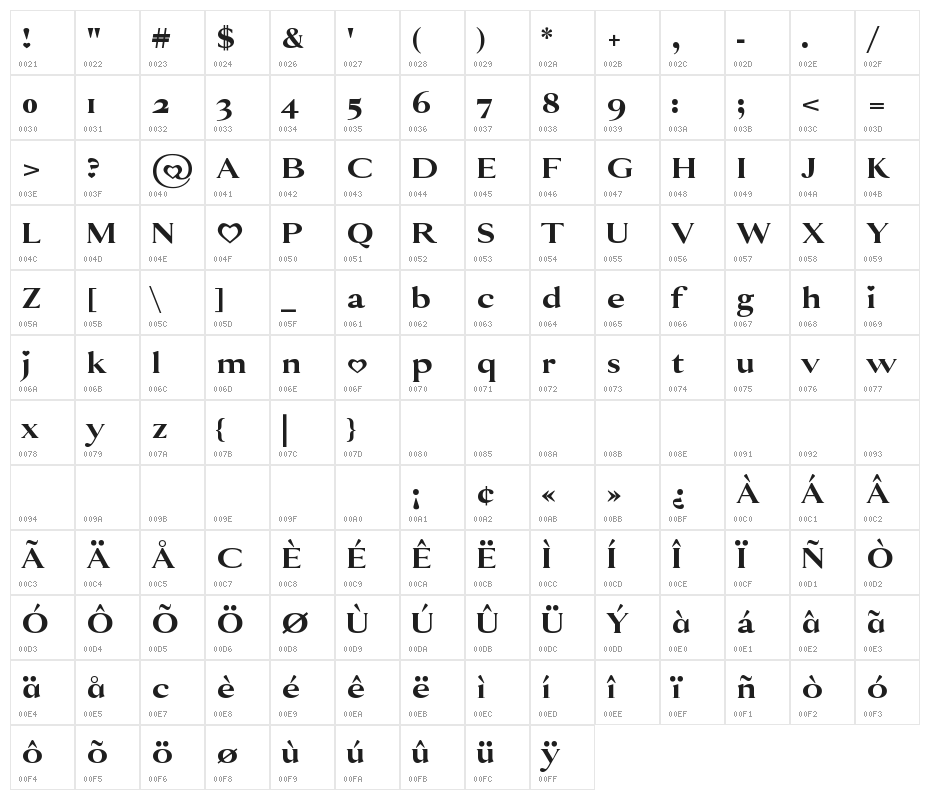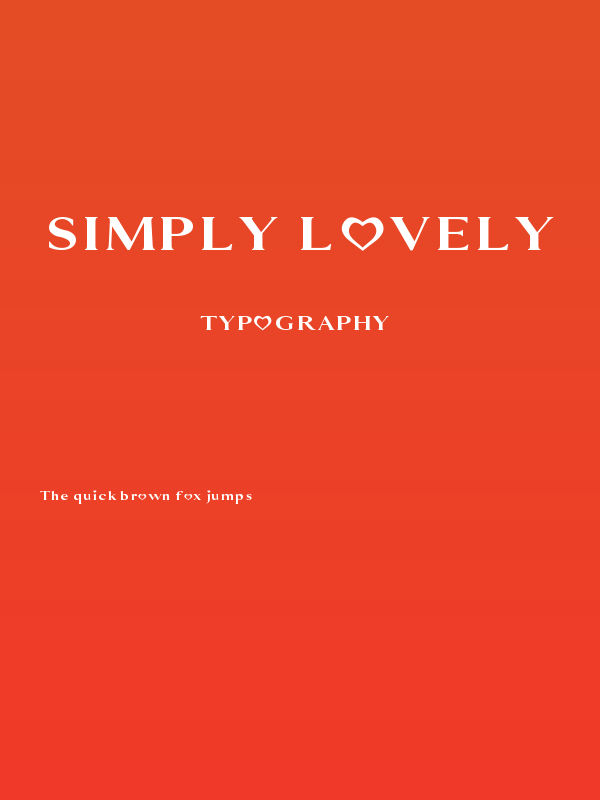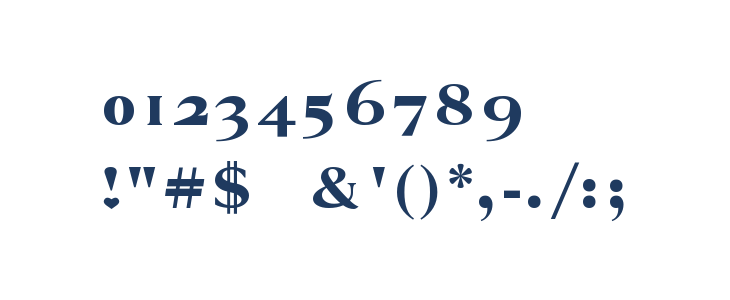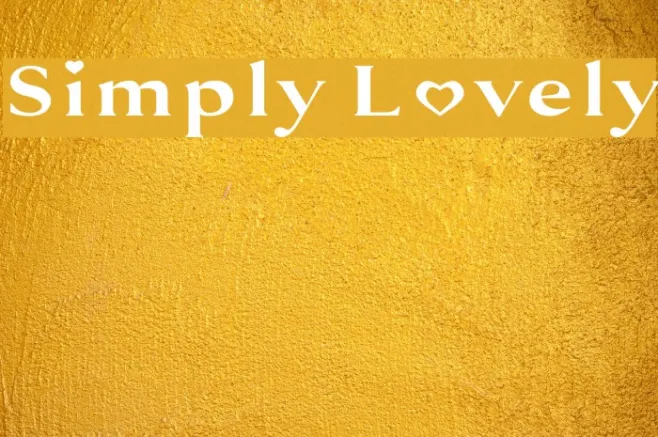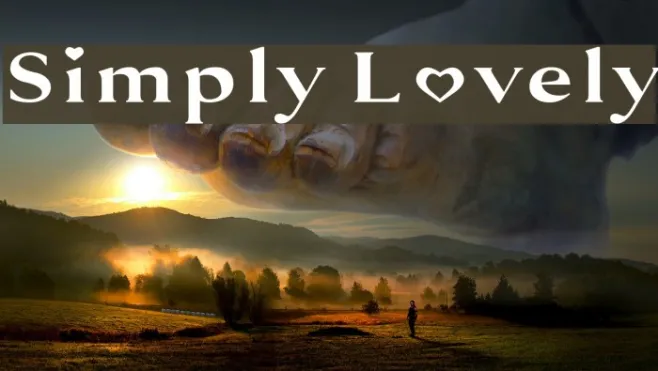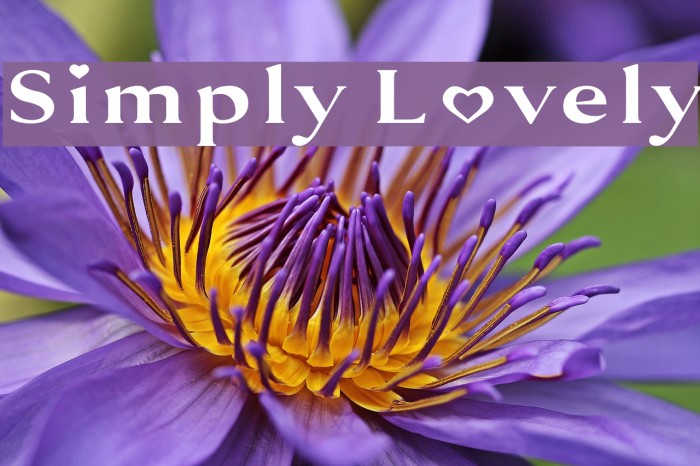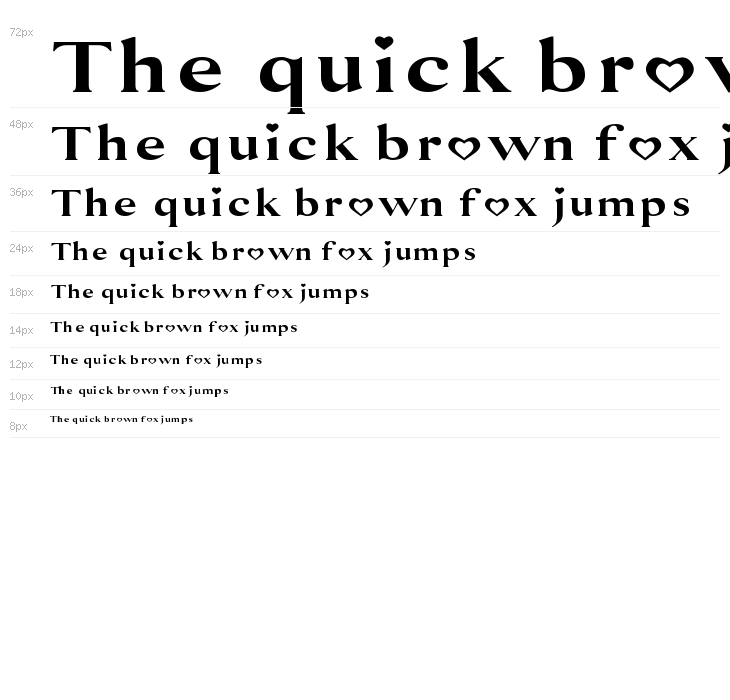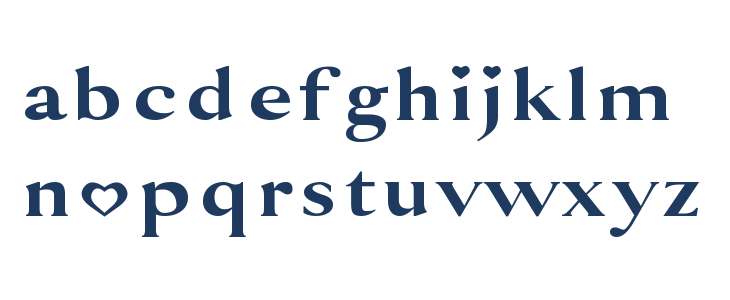
Simply Lovely Font
Simply Lovely Description
This font features a charming and unique design with a playful twist. The uppercase letters are bold and elegant, with a distinctive heart shape incorporated into the letter 'O'. The lowercase letters maintain a consistent style, with smooth curves and a slightly whimsical feel. The numerals are clear and easy to read, complementing the overall aesthetic. Special characters are thoughtfully designed, adding to the font's cohesive look. This font's blend of elegance and playfulness makes it suitable for a variety of creative projects.
| Proposed Projects | Ideal for wedding invitations, romantic greeting cards, branding for lifestyle products, and playful editorial designs. |